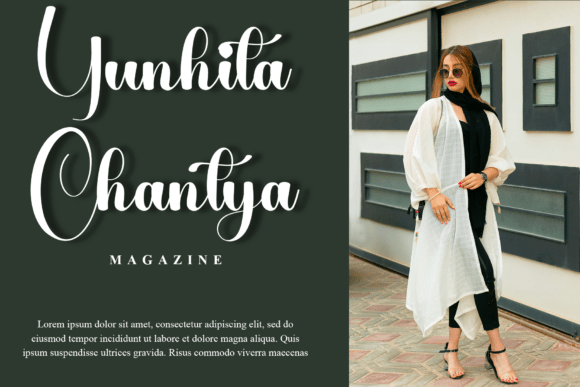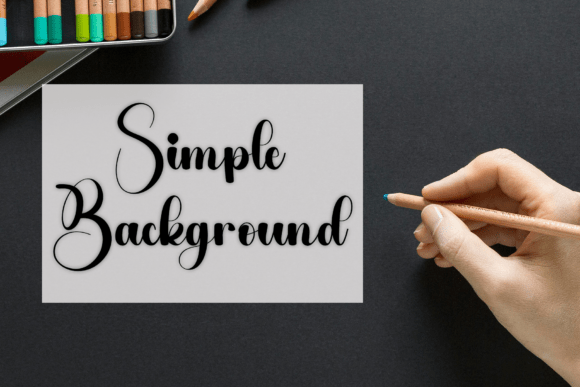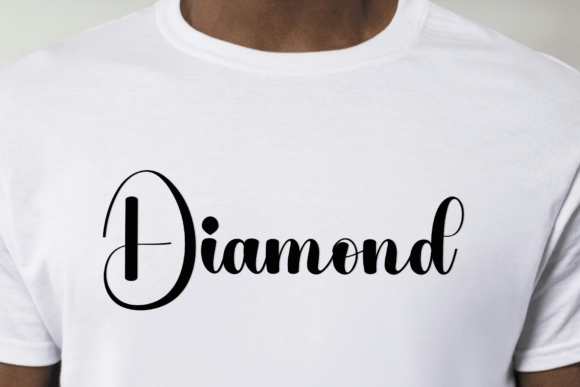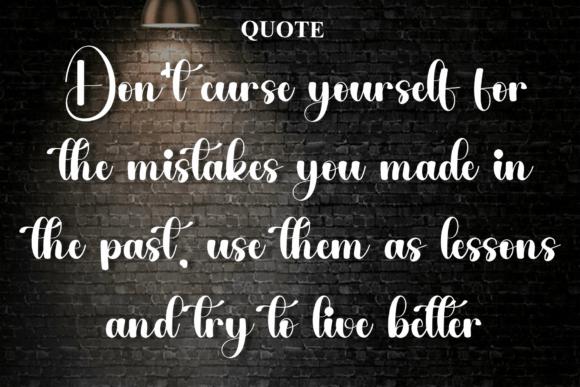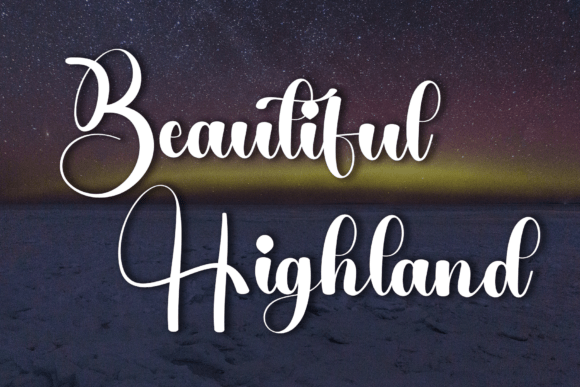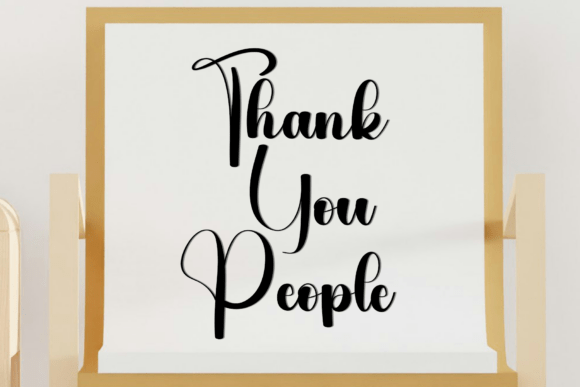
Where Words Meet Art: The Beauty of Balpoint Handwriting Font
Have you ever sat with a blank journal, a pen in hand, and a spark of creativity waiting to ignite? As you begin to write, the words flow effortlessly onto the page, a symphony of loops and curves that bring your thoughts to life. This magical moment is what inspired the creation of the Balpoint Handwriting Font – a modern script font that captures the elegance of personal penmanship.
Perfect for branding, logos, wedding stationery, and feminine packaging, the Balpoint Handwriting Font is a valuable tool for designers seeking to add natural charm and refined detail to their designs. With its full glyph set, ligatures, and multilingual characters, this font allows for personalized and polished designs that exude sophistication and style.
Balpoint Handwriting Font Key Features
- Font Style: A unique, elegant, and cursive handwriting font with a touch of sophistication.
- Character Set: Includes a wide range of characters, including uppercase and lowercase letters, numbers, punctuation marks, and special characters.
- Unique Characteristics: The font’s distinctive, flowing strokes and subtle variations in letterforms give it a natural, handwritten feel, perfect for creating a personal and inviting tone in your designs.
Design Review: Balpoint Handwriting Font
As a designer, I was excited to dive into the world of Balpoint Handwriting Font, but my expectations were a mix of delight and frustration. ✨ On the positive side, the font’s organic feel and subtle imperfections evoke a sense of authenticity, making it perfect for projects that require a touch of personality. The font’s fluidity and expressiveness also make it an excellent choice for creative writing and artistic projects.
However, I did encounter some limitations ⚠️. For one, the font’s legibility can be a concern, especially in smaller text sizes. The font’s irregularities can sometimes make it difficult to read, which may not be ideal for body text or large blocks of content. Additionally, the font’s uniqueness can be both a blessing and a curse – while it adds character to a design, it may not be the best choice for projects where consistency and clarity are paramount.
Key Takeaways:
- Unique and expressive design that’s perfect for creative projects
- Fluid and organic feel that adds personality to a design
- May struggle with legibility in smaller text sizes
- Not ideal for projects where consistency and clarity are crucial
While Balpoint Handwriting Font has its charms, it’s not a one-size-fits-all solution. If you’re looking to add some personality to a design, it’s definitely worth considering. However, if you prioritize legibility and consistency, you may want to look elsewhere.
The Balpoint Handwriting Font is ideal for:
– Creating personal and handwritten-style invitations
– Designing educational materials, such as worksheets and lesson plans
– Adding a touch of elegance to digital resumes and business cards
– Creating unique and eye-catching social media graphics
Alternatives to Balpoint Handwriting Font
Lobster Font is a fun and casual handwriting font that can be used for informal and creative projects. It is ideal for social media, advertisements, and blog posts where a friendly tone is required. Lobster Font is similar to Balpoint Handwriting Font in its playful and handwritten feel, but it is more condensed and has a more modern look.
Alex Brush Font is a beautiful and elegant handwriting font that can be used for high-end projects such as luxury brands, weddings, and invitations. It is ideal for projects where a sophisticated and refined tone is required. Alex Brush Font is more refined and elegant compared to Balpoint Handwriting Font, making it suitable for formal and high-end projects.